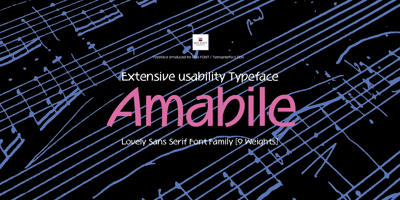
Amabile Font Family was designed by Kazuo Kanai and published by REN FONT. Amabile contains 8 styles and family package options. Hello. Welcome to the Foundry “REN FONT”!I am a Japanese font artist, and this is my first challenge at a full-fledged Latin fonts.The typeface name is “Amabile (Adorable, прекрасный, Αρκετά/Αξιολάτρευτο)”. It means “lovely” in music terms.The design feature reflects the feature of Japanese typeface “Waon”, as the depending latin characters of which this typeface is designed.“Amabile” briefly expresses the basic concept of Waon, to “Express a music with typeface”. The non-Japanese characters in the Japanese font are basically composed with Latin, Cyrillic, and Greek. In addition to these 3 types of characters, “Amabile” have the capability of 87 languages by extending character types so called “W1G”, which consists of Latin supplements, Cyrillic supplements, Greek supplements, Latin extensions.We no longer offer free Regular weights for OpenType.こんにちは。ファウンドリー “REN FONT” へようこそ!私は日本人のフォント作家ですが、初めて本格的な欧文フォントに挑戦しました。この書体の名前は「Amabile(アマービレ)」。音楽用語で「愛らしく」という意味があります。「和音」の従属欧文として制作された性格上、当然ながら「和音」の特長を反映したデザインになっています。「和音」の基本コンセプトである「文字で音楽を表現する」を、最も端的に文字通り「表現」しているのがこの「Amabile」です。ほとんどの和文書体の従属欧文は Latin, Cyrillic, Greek の3種類が基本です。「Amabile」はこの3種類に Latin 補助、Cyrillic 補助、Greek 補助、Latin 拡張などを加えた、いわゆるW1Gの規格にプラスアルファし、87か国言語を表現できる多言語フォントに生まれ変わりました。グリフ形状は、比較的自由にデザイン表現が可能な Latin 以外は「Amabile」の特徴を残しつつ、ネイティブの形状を壊さない、ぎりぎりの選択を施してあります。OpenType の Regular ウェイトの無料提供は終了しました。